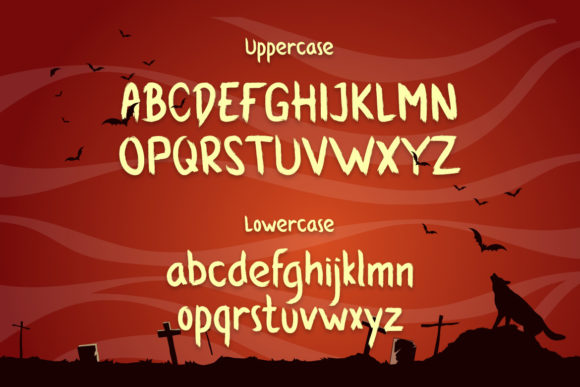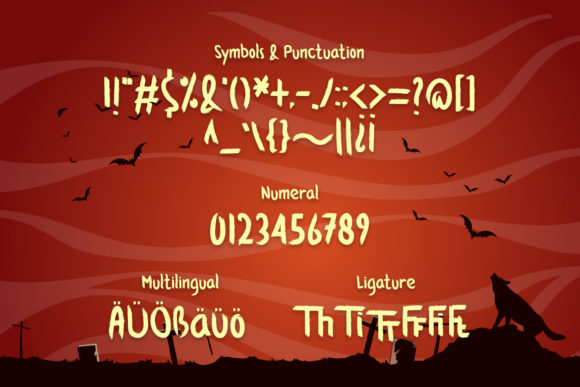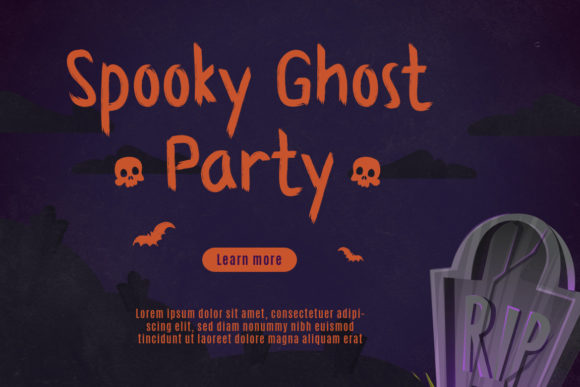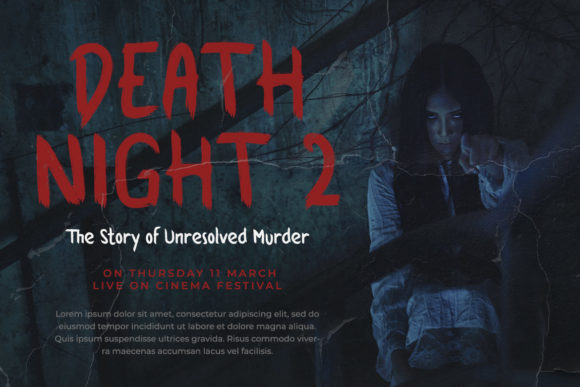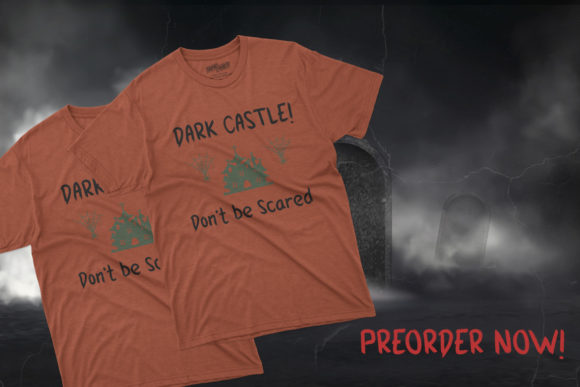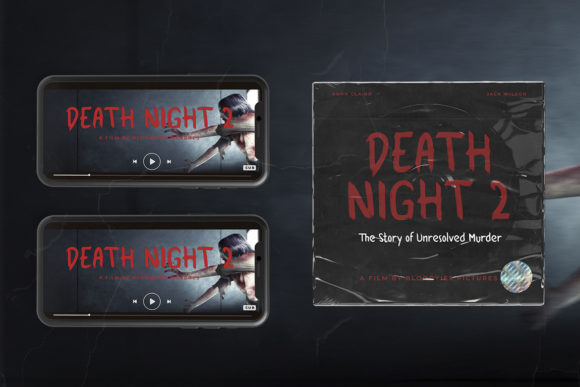
Introduction to Howling Nightmare Font
Howling Nightmare is an incredibly unique display font.
Masterfully designed to become a true favorite, this font has the potential to bring each of your creative ideas to the highest level It doesnโt matter if youโre creating Game Horror, T-Shirts or crafts which are meant to be scary โ this font will provide any project with extra spook, fright and feels.
Key Features of Howling Nightmare Font